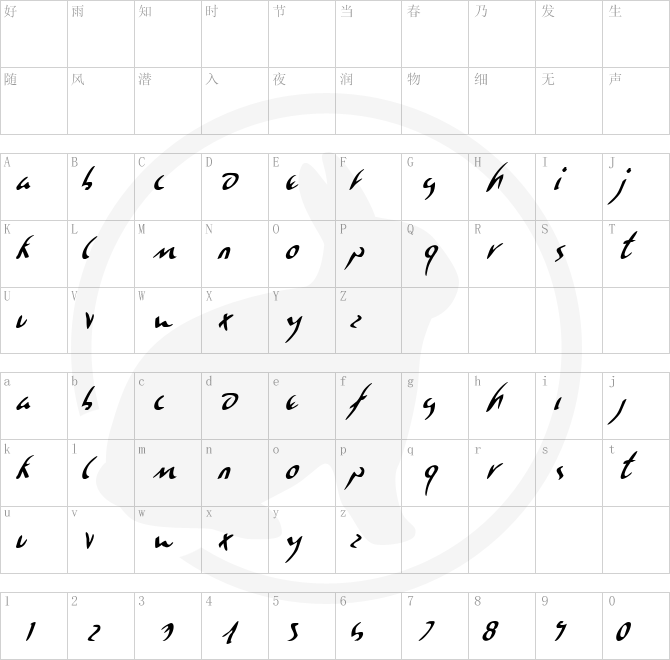
- Font Name:Eagleclaw Condensed Italic
Eagleclaw-Condensed-Italic.ttf is a very beautiful artistic font, Eagleclaw-Condensed-Italic.ttf is widely used in the design and printing of various books and pictures,Eagleclaw-Condensed-Italic.ttf has a strong visual impact,Eagleclaw-Condensed-Italic.ttf is a commonly used font in newspapers, magazines and books, and is used in posters, e-commerce Poster design, store design, logo design, font design and other fields.Eagleclaw-Condensed-Italic.